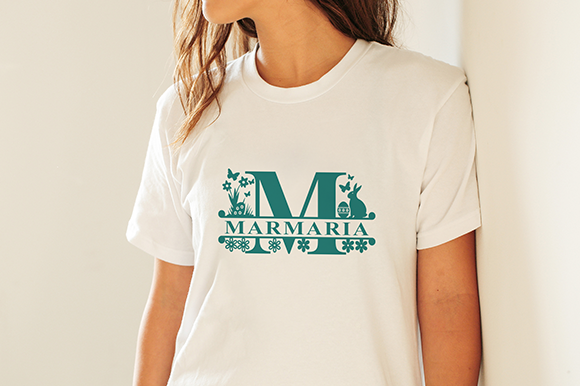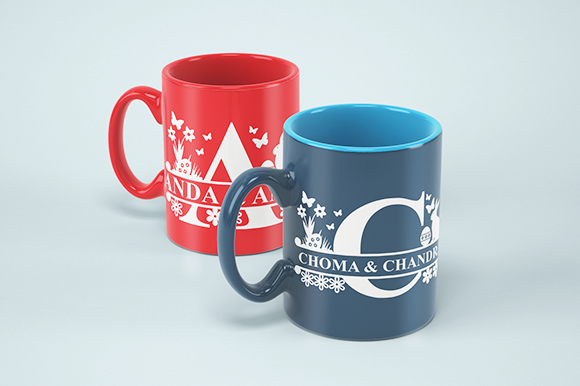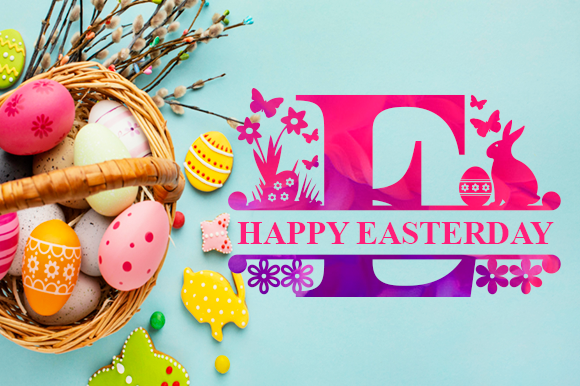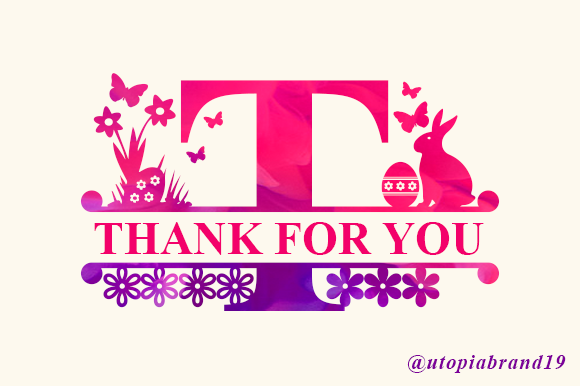
Easterday Monogram Font: The Perfect Addition to Your Easter Designs
As Easter approaches, designers and crafters are on the lookout for the perfect font to add a touch of festivity to their creations. Look no further than the Easterday Monogram Font, a sweet and decorative font that’s ideal for all your Easter-related design ideas. With its simple yet strong visual effect, this font is sure to make your creations stand out from the rest.
What is Easterday Monogram Font?
Easterday Monogram Font is a decorative font designed specifically for Easter-themed designs. Its unique and playful style makes it perfect for creating eye-catching titles, headings, and monograms for Easter cards, invitations, and other craft projects. The font features a distinctive monogram style, with intricate details and flourishes that give it a charming and whimsical feel.
Key Features of Easterday Monogram Font
• Simple yet effective design: The Easterday Monogram Font has a simple yet strong visual effect that makes it perfect for a wide range of Easter-themed designs.
• Decorative monogram style: The font features a unique monogram style, with intricate details and flourishes that add a touch of elegance to your designs.
• Easter-themed: The font is designed specifically for Easter-related designs, making it perfect for creating festive and seasonal artwork.
Easterday Monogram Font in Design and Crafting
The Easterday Monogram Font is perfect for a wide range of design and crafting projects, including:
• Easter cards and invitations: Create beautiful and festive Easter cards and invitations using the Easterday Monogram Font.
• Easter-themed crafts: Add a touch of elegance to your Easter-themed crafts, such as Easter egg decorations, bunny figurines, and spring-themed DIY projects.
• Social media graphics: Use the Easterday Monogram Font to create eye-catching social media graphics, such as Easter-themed Facebook posts and Instagram stories.
• Digital art: Incorporate the Easterday Monogram Font into your digital art projects, such as Easter-themed illustrations and graphics.
Tips and Tricks for Using Easterday Monogram Font
• Experiment with different colors: Try pairing the Easterday Monogram Font with different colors to create unique and eye-catching designs.
• Add embellishments: Add embellishments, such as glitter or flowers, to give your designs an extra touch of festivity.
• Mix and match with other fonts: Experiment with pairing the Easterday Monogram Font with other fonts to create interesting and dynamic designs.
The Easterday Monogram Font is a sweet and decorative font that’s perfect for all your Easter-related design ideas. With its simple yet strong visual effect, this font is sure to make your creations stand out from the rest. Whether you’re a designer or crafter, the Easterday Monogram Font is a great addition to your font collection. So why wait? Download the Easterday Monogram Font today and start creating beautiful and festive Easter designs!